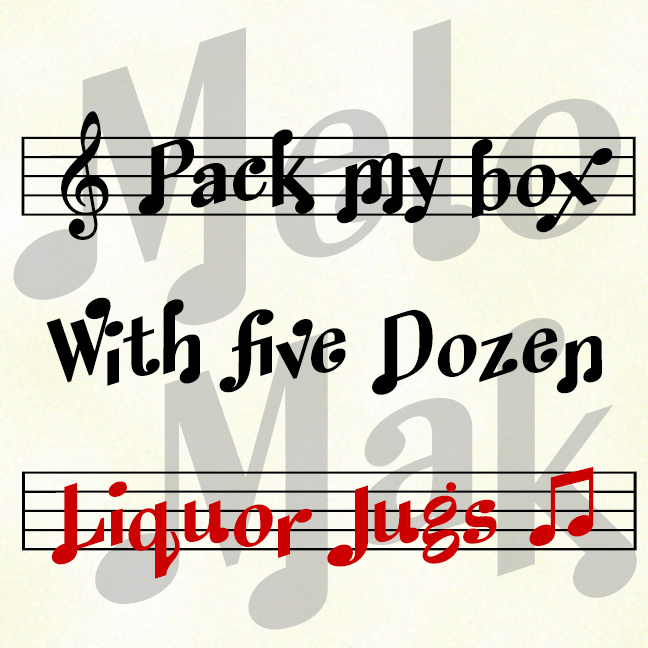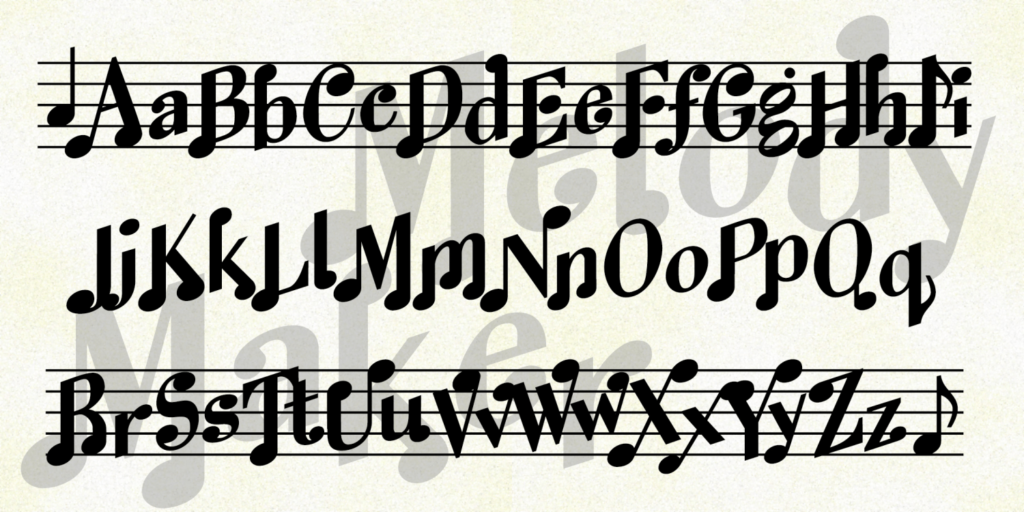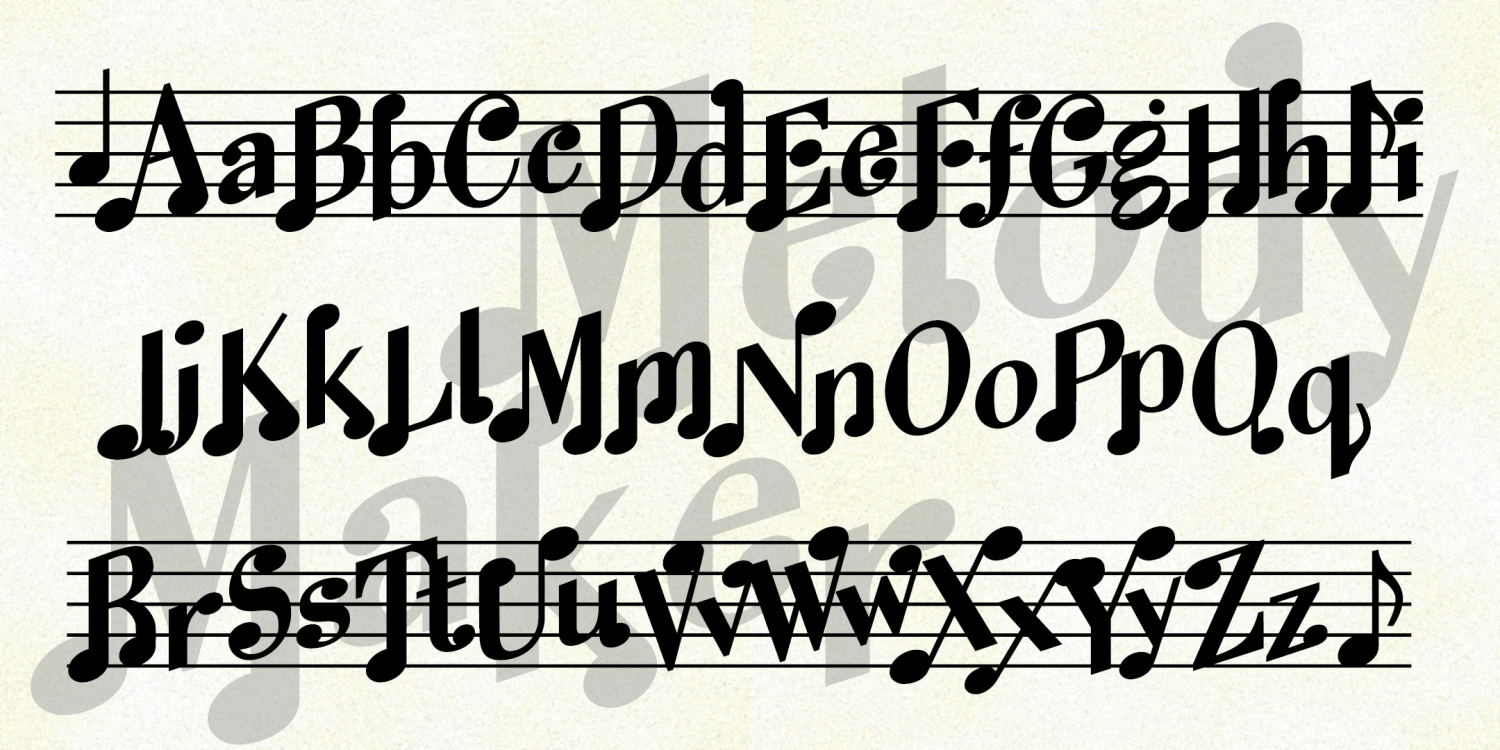
Melody Maker
About Melody Maker
Melody Maker lets you set type that looks like musical notation! The complete font includes some clefs, notes, and more to create musical headlines, captions, and logos. In addition to the font as shown at the left, there are also Notes Only and Staff…